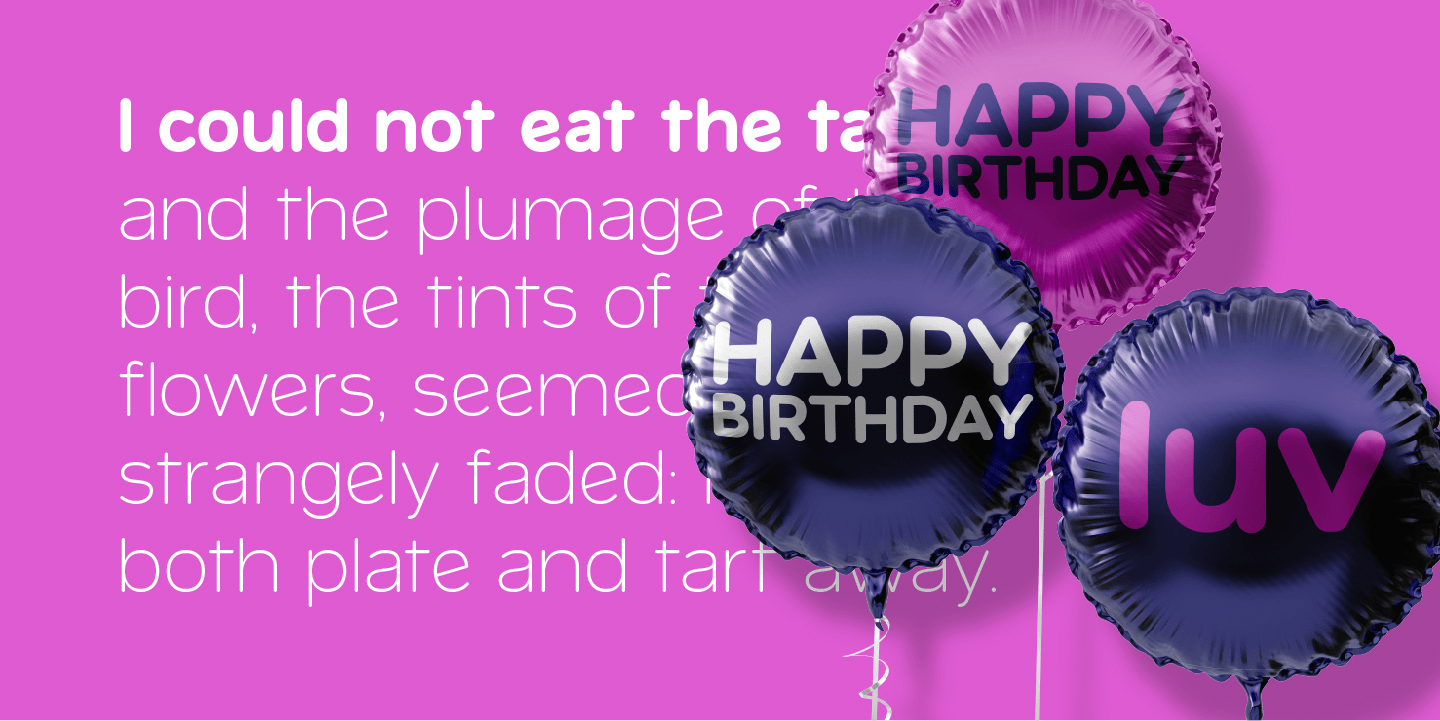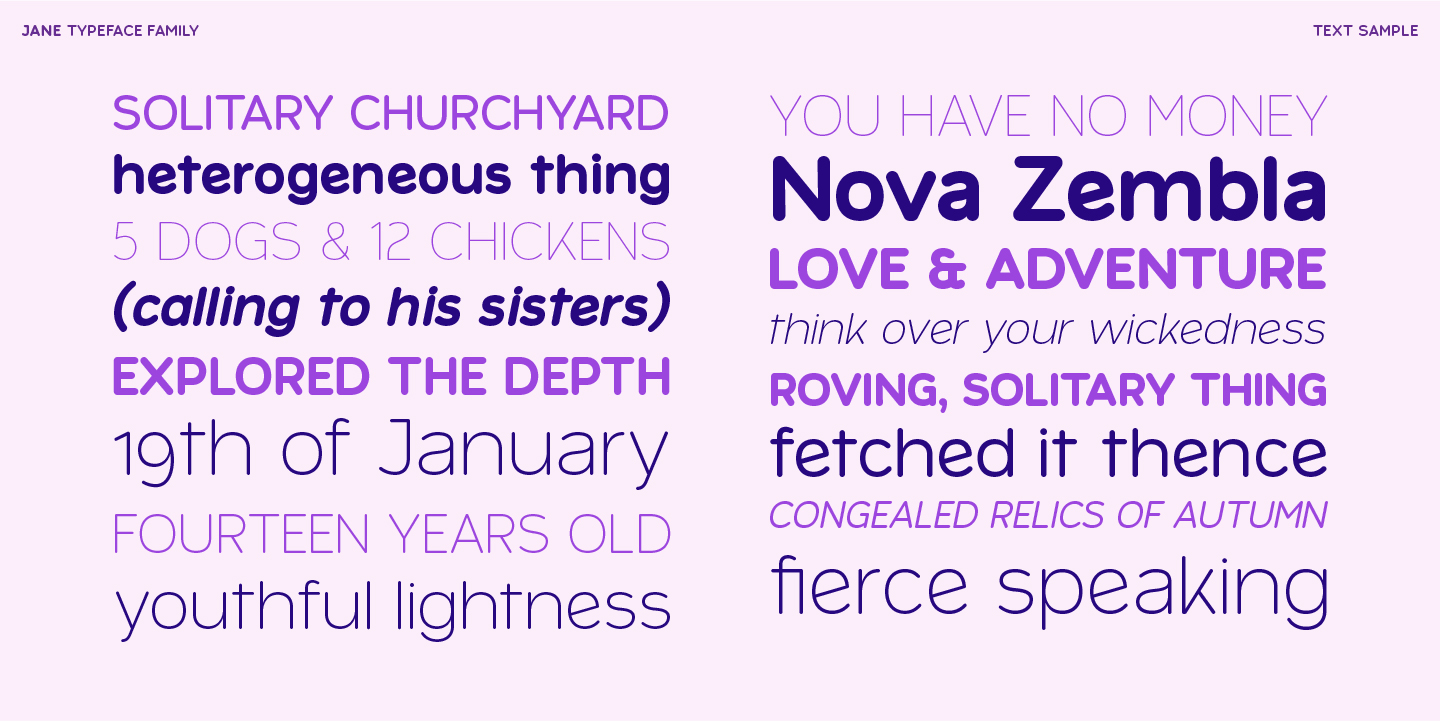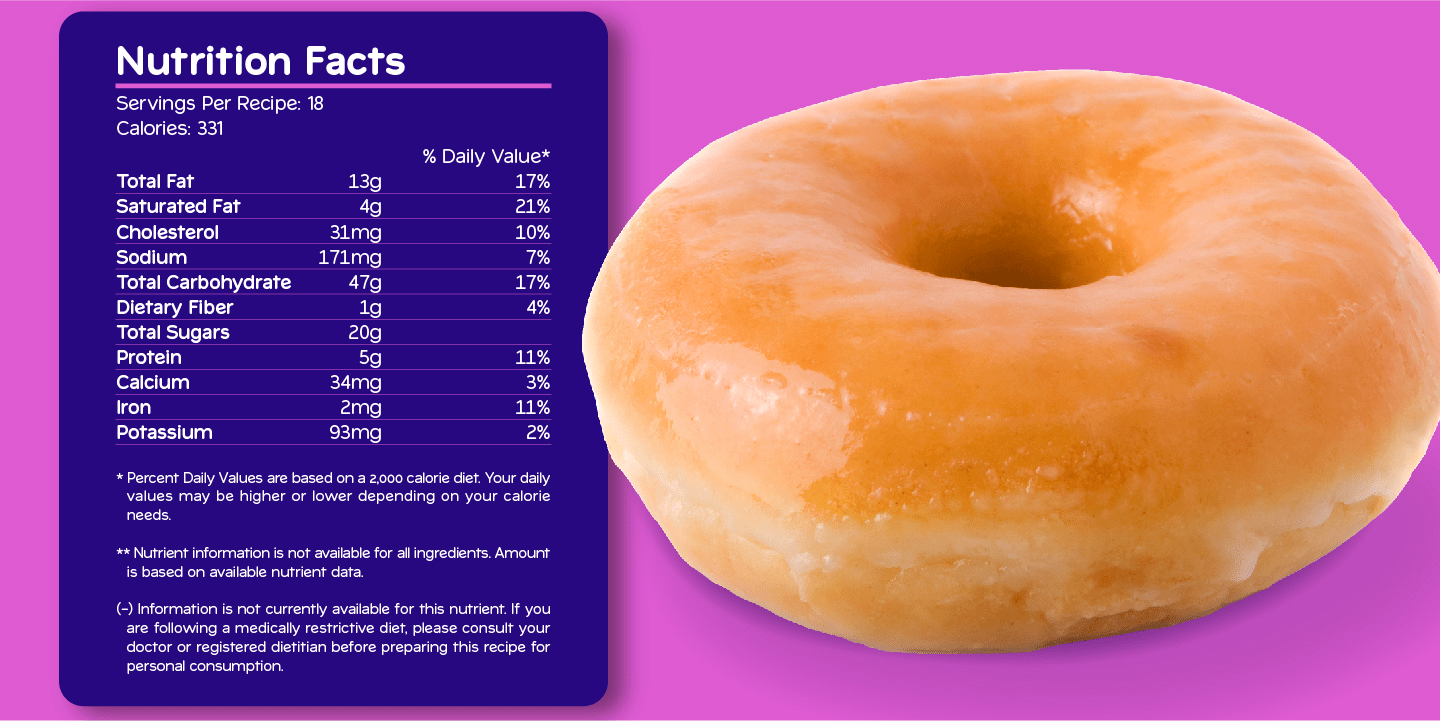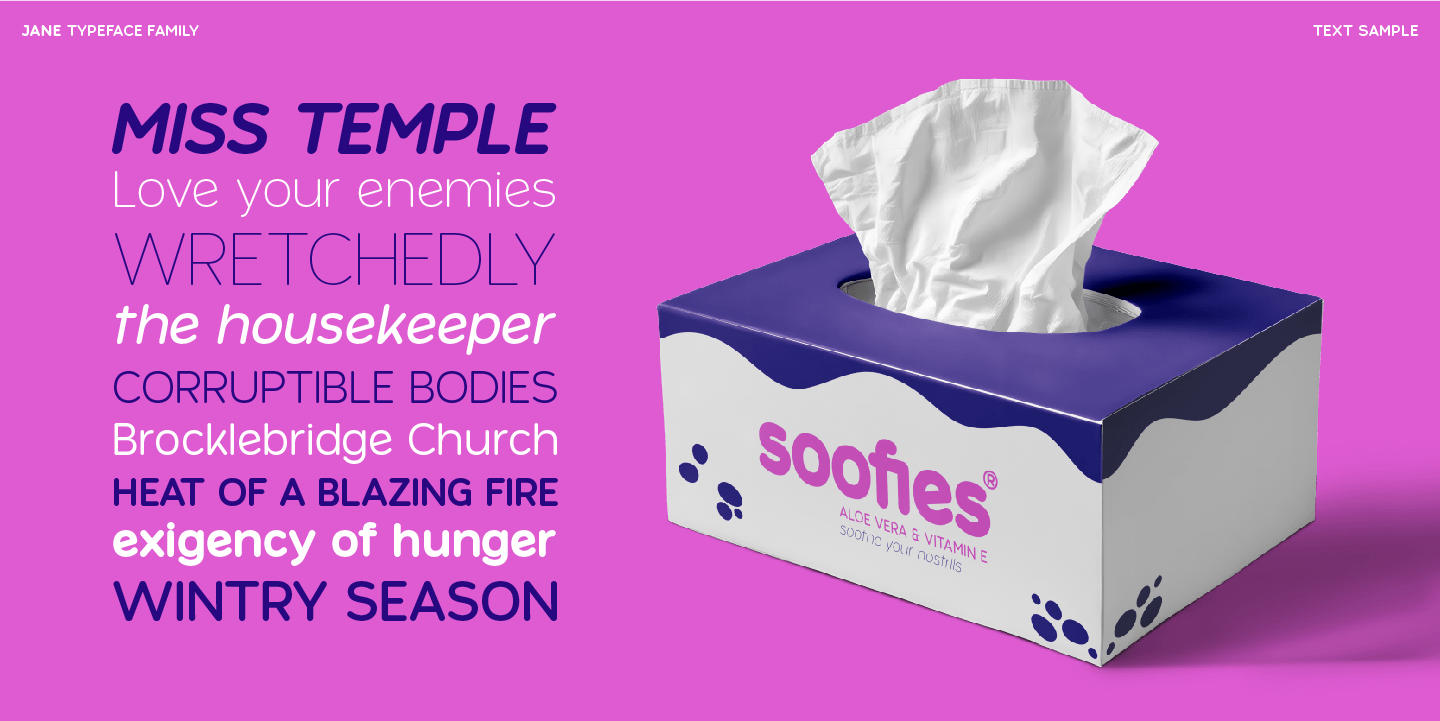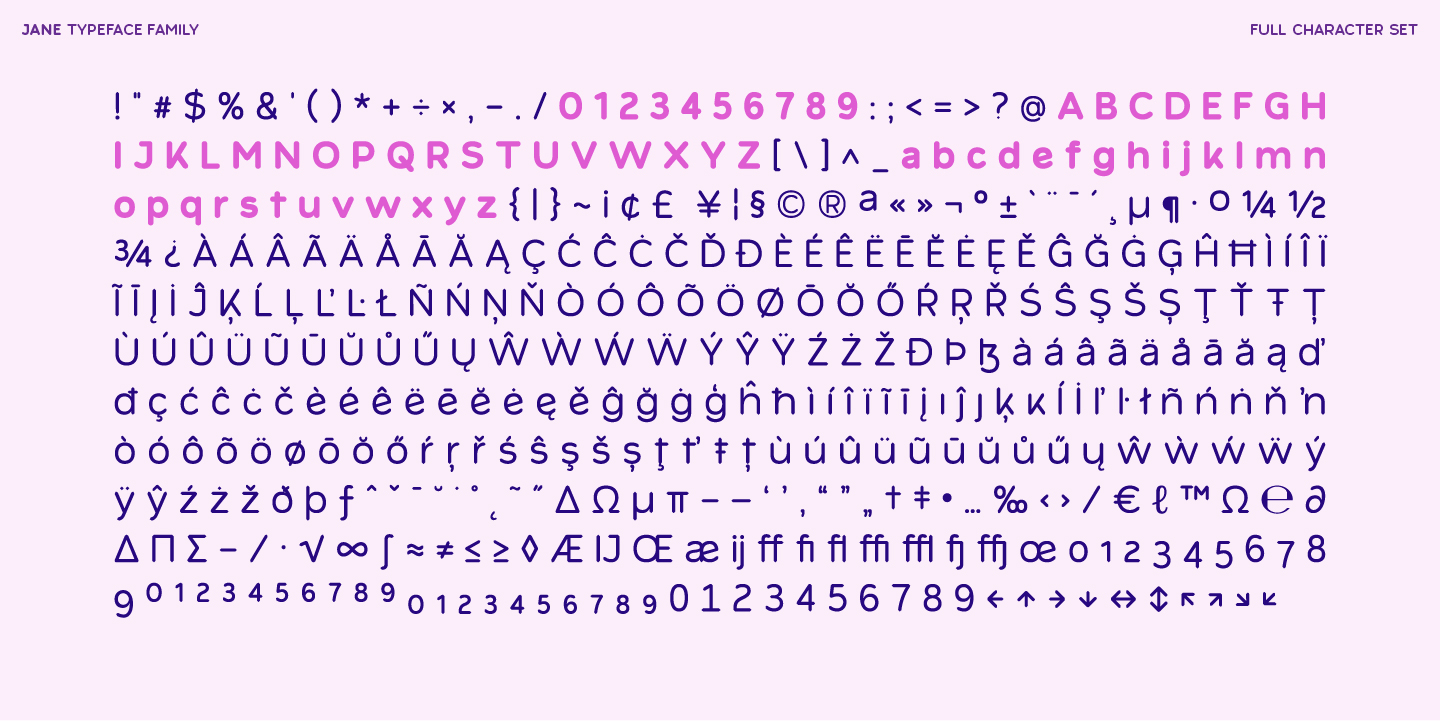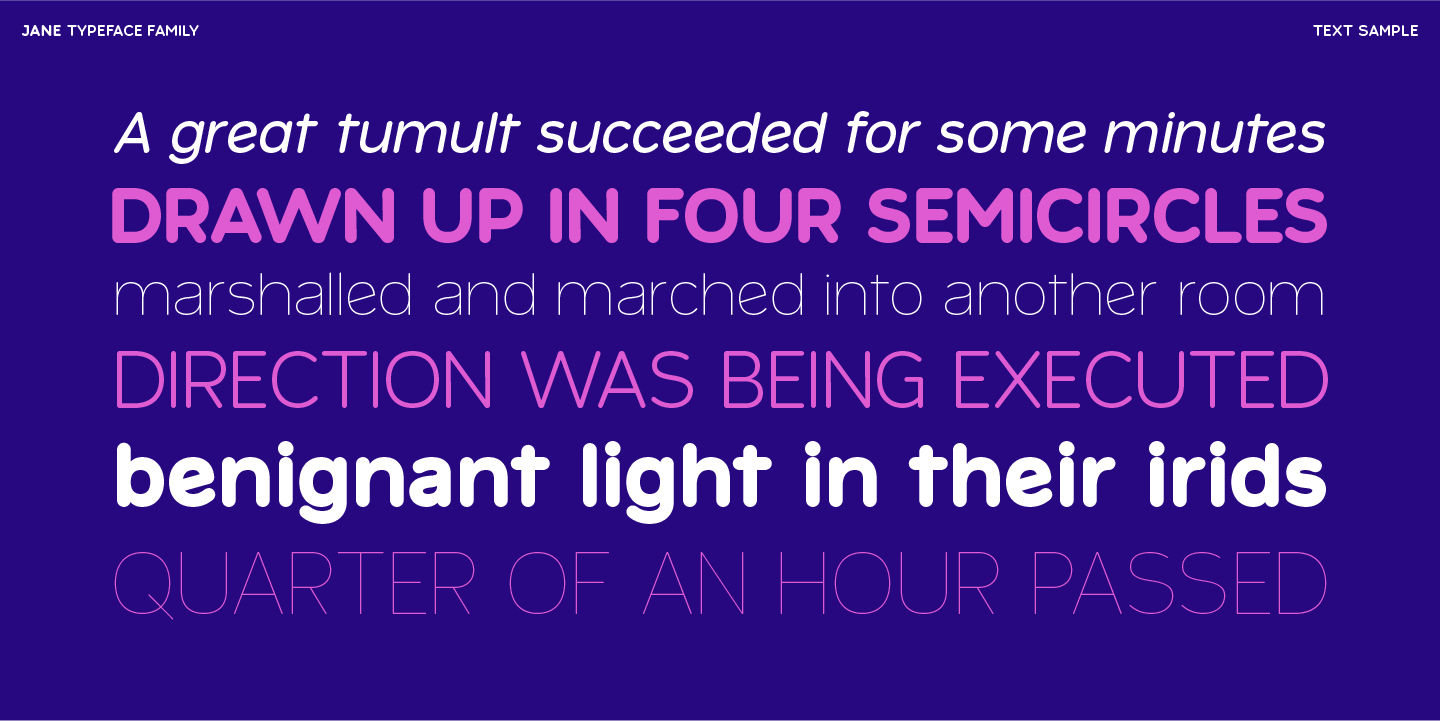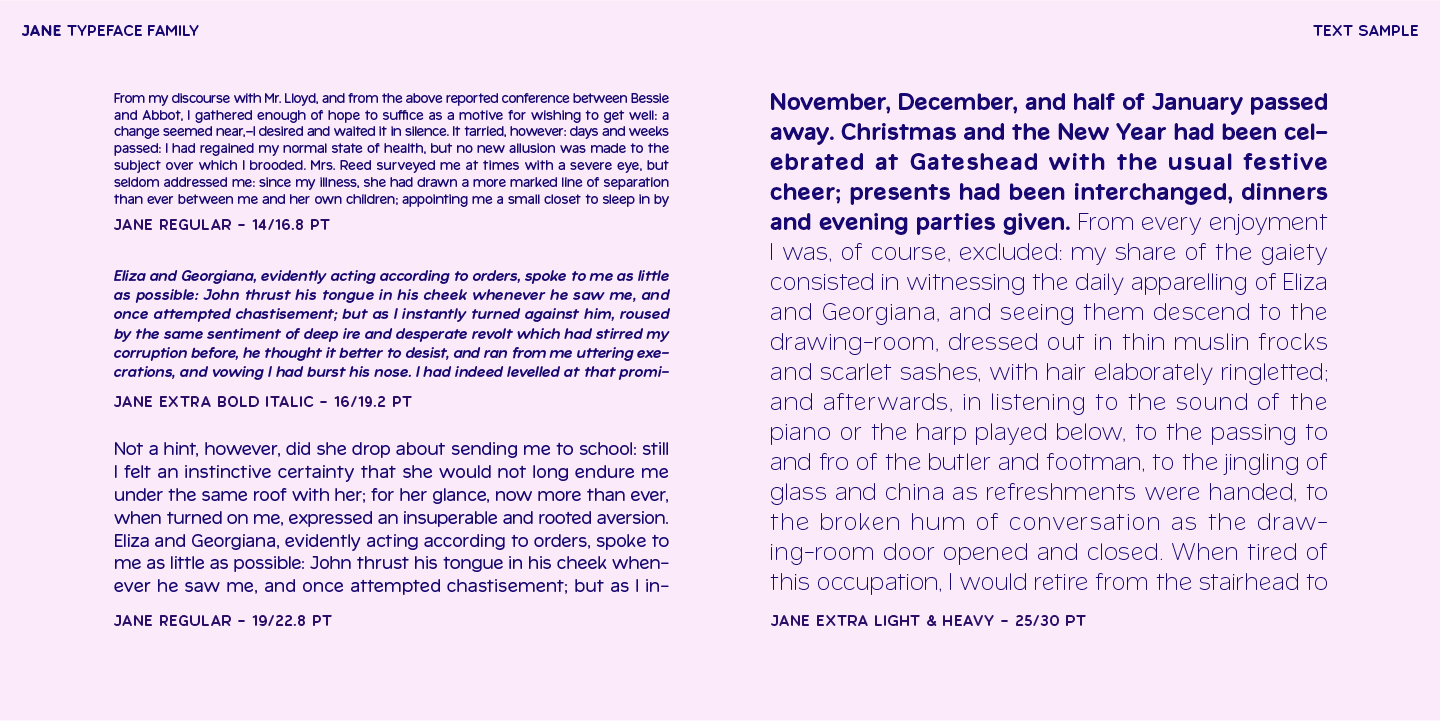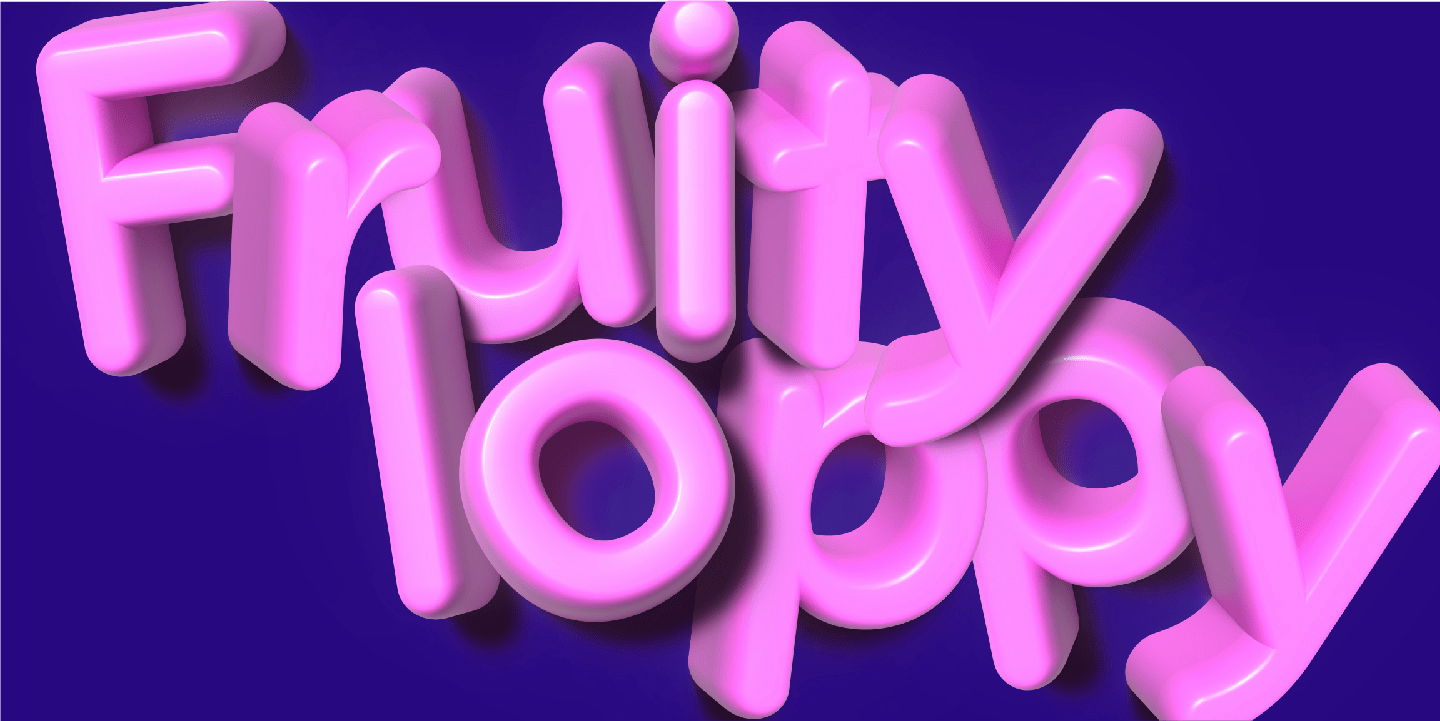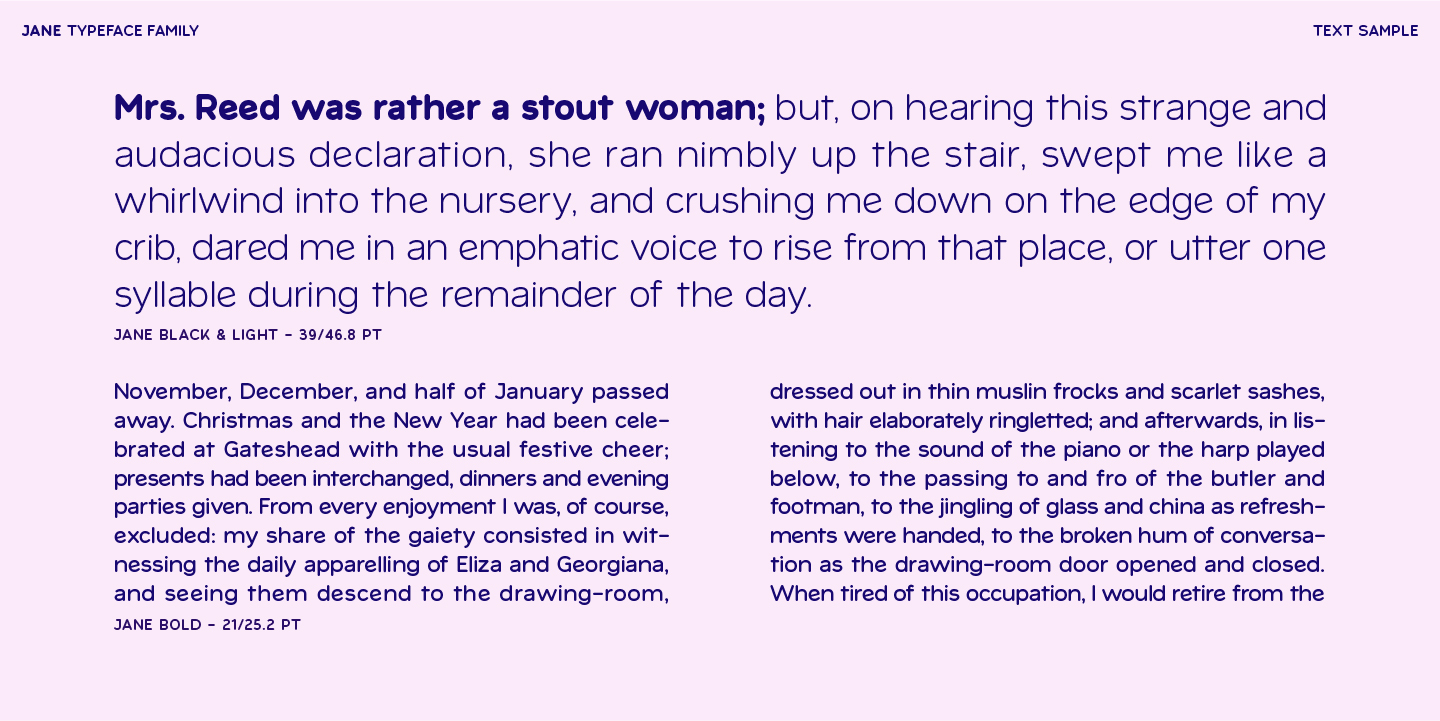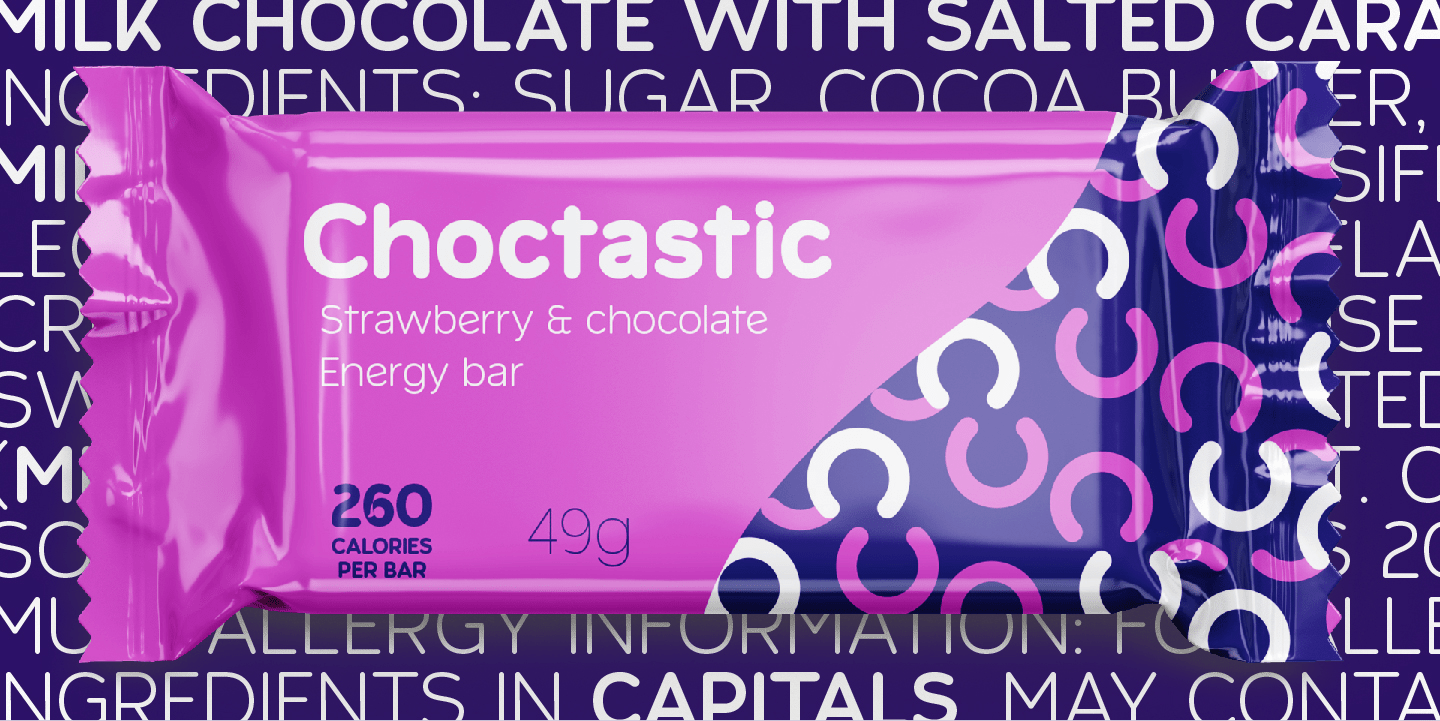
Jane
Font Family by Typogama
Jane is a rounded, geometric sans serif typeface family designed for a wide range of uses. Soft and friendly in larger sizes, Jane remains clear and legible in smaller point sizes and thanks to the 20 weights, can adapt its style to any context or message. With an expanded latin character set and a range of Opentype features, Jane is available as static Postscript Opentype fonts or as a single Variable font with two axes.